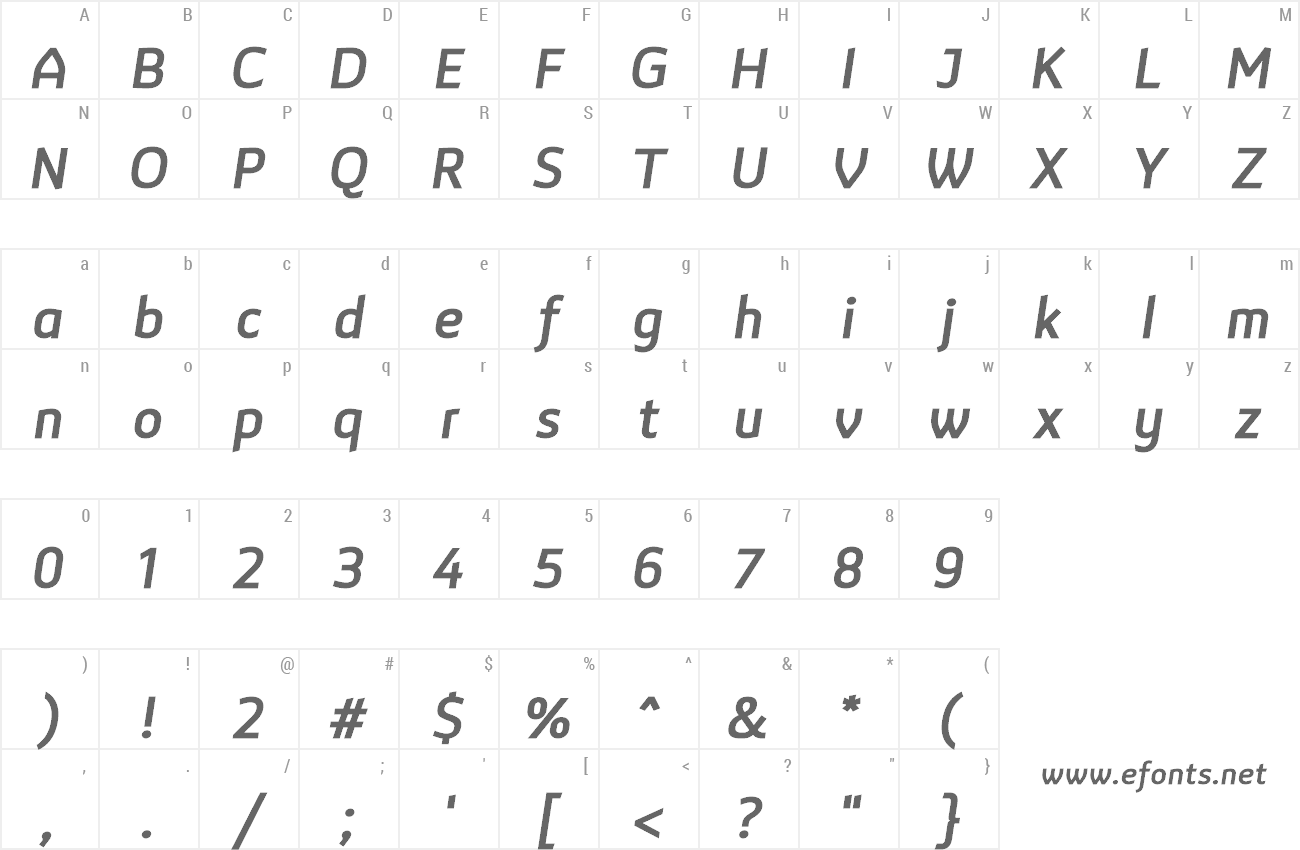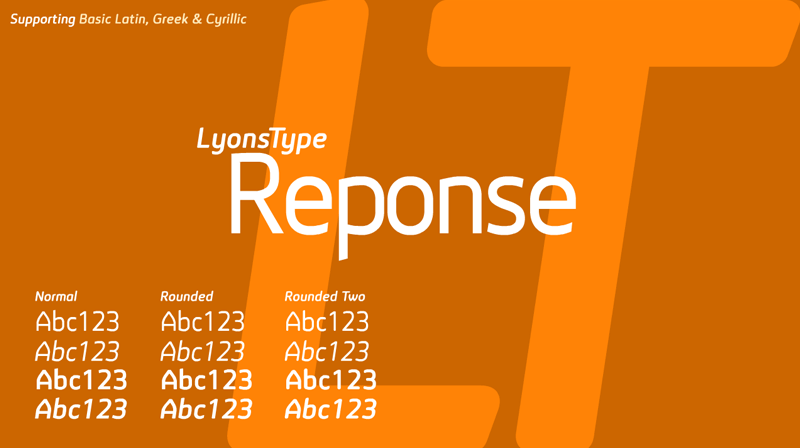
Preview and download LT Reponse Font. Created by Daniel Lyons in Basic Sans serif styles with 100% Free license.
| This font comes with two rounded variations. One is the semi-rounded, and the other is the completely rounded variation. In other words, Reponse is a typeface to represent sleekness and a futuristic example. |